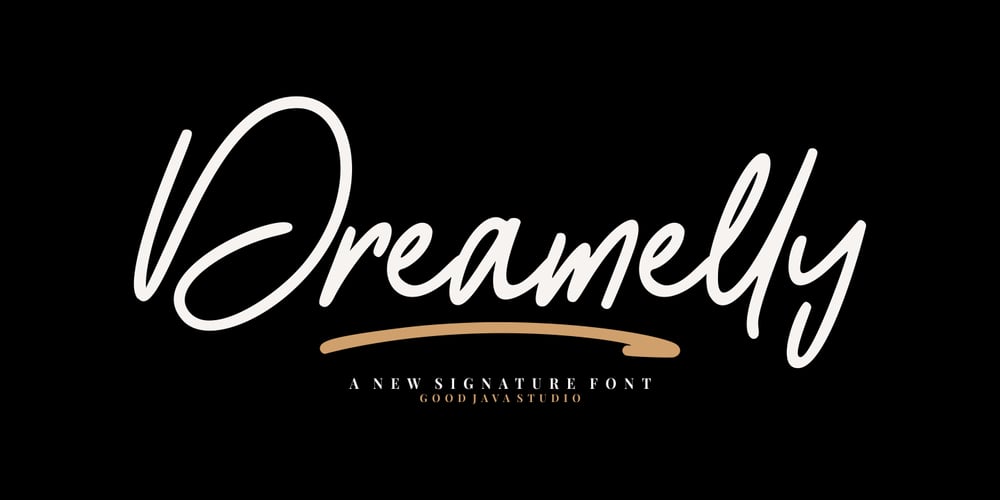
Dreamelly
Dreamelly font
Dreamelly Font Family was designed by Good Java and published by Good Java Studio. Dreamelly contains 1 styles and family package options. Dreamelly was born from hand writing style fonts. It is versatile and useful for design posters, logos, branding, labels, quotes, headline profiles, banners, t-shirt design, packaging, magazines, brochures, and much more in your amazing work.